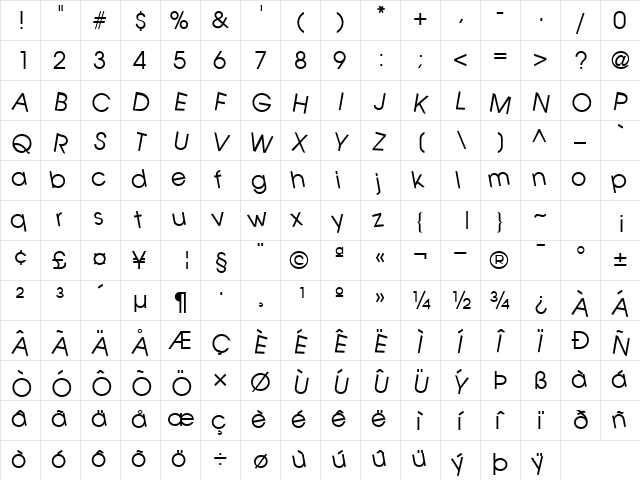
Tricky Regular Font Preview
Tricky Regular
Design Context for Tricky Typeface
Tricky takes a measured approach to typography — its balanced proportions and neutral character make it a reliable workhorse for both digital and print work.